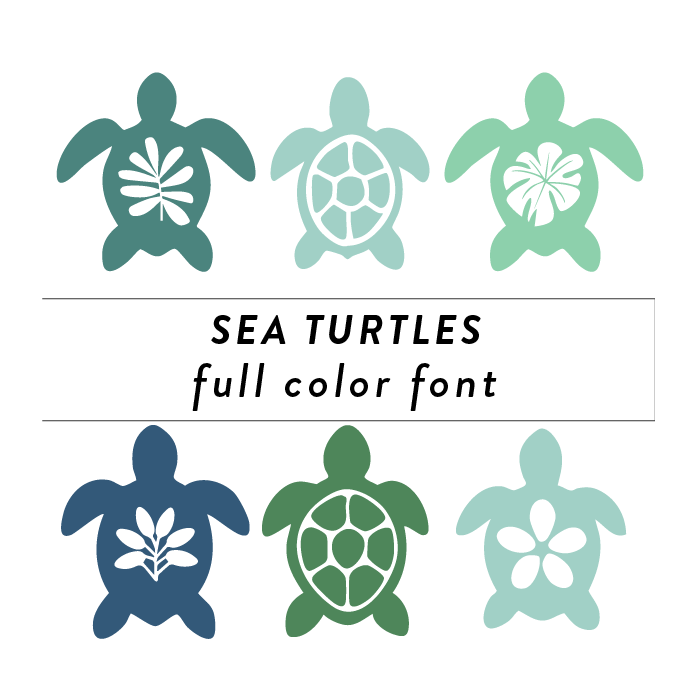
Sea Turtles Full Color Font is a whimsical and vibrant font design inspired by the beauty of underwater sea turtles. The font features intricate details and a full-color palette, capturing the essence of these majestic creatures. Perfect for beach-themed projects, nautical designs, or anything related to the summer or beach! This font is a OTF craft font that will appear in color only when used with the silhouette software.